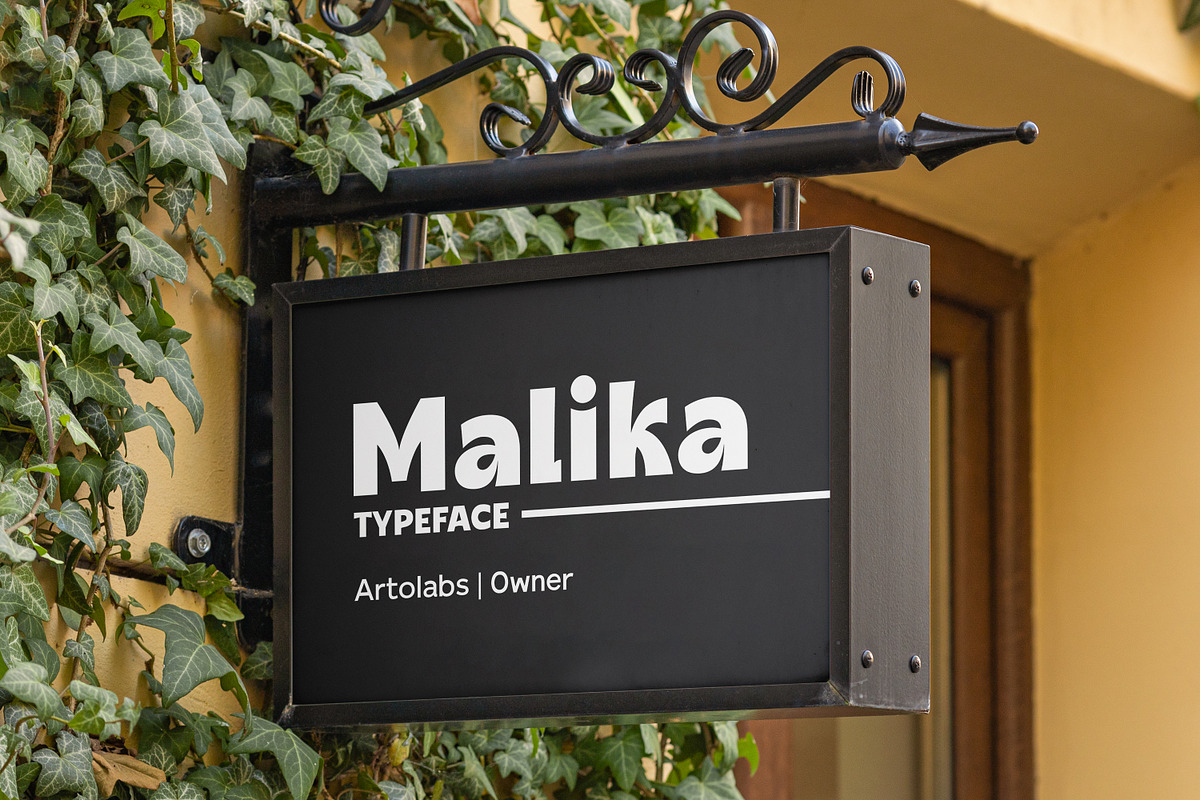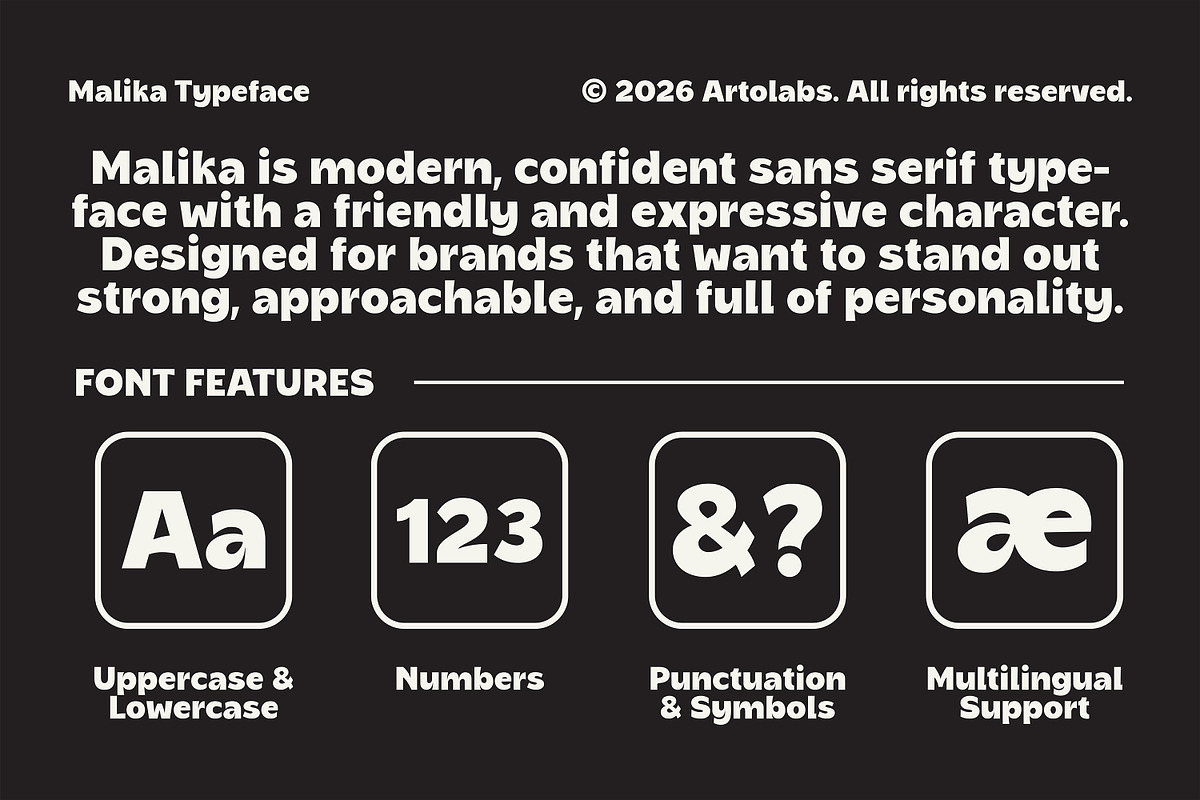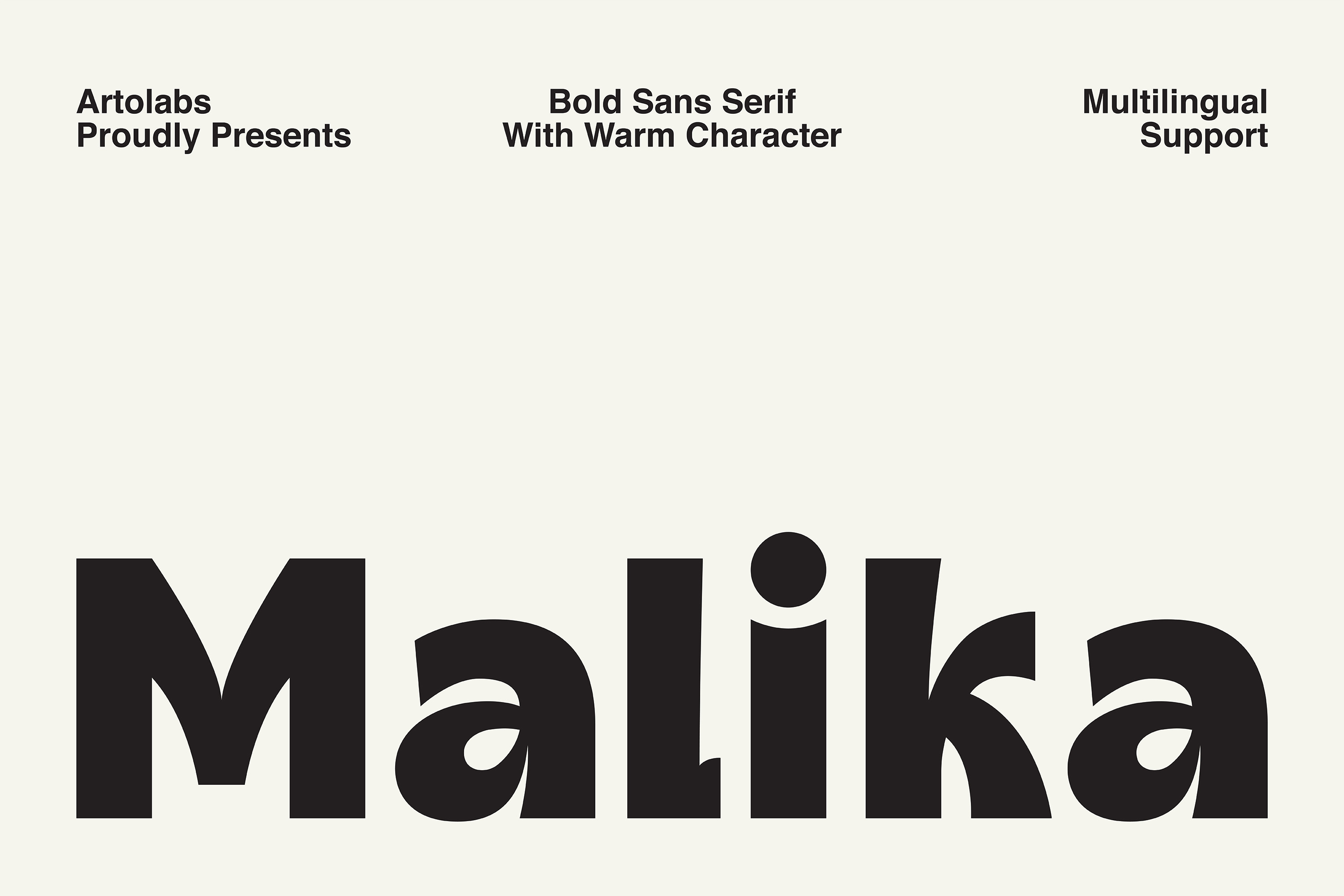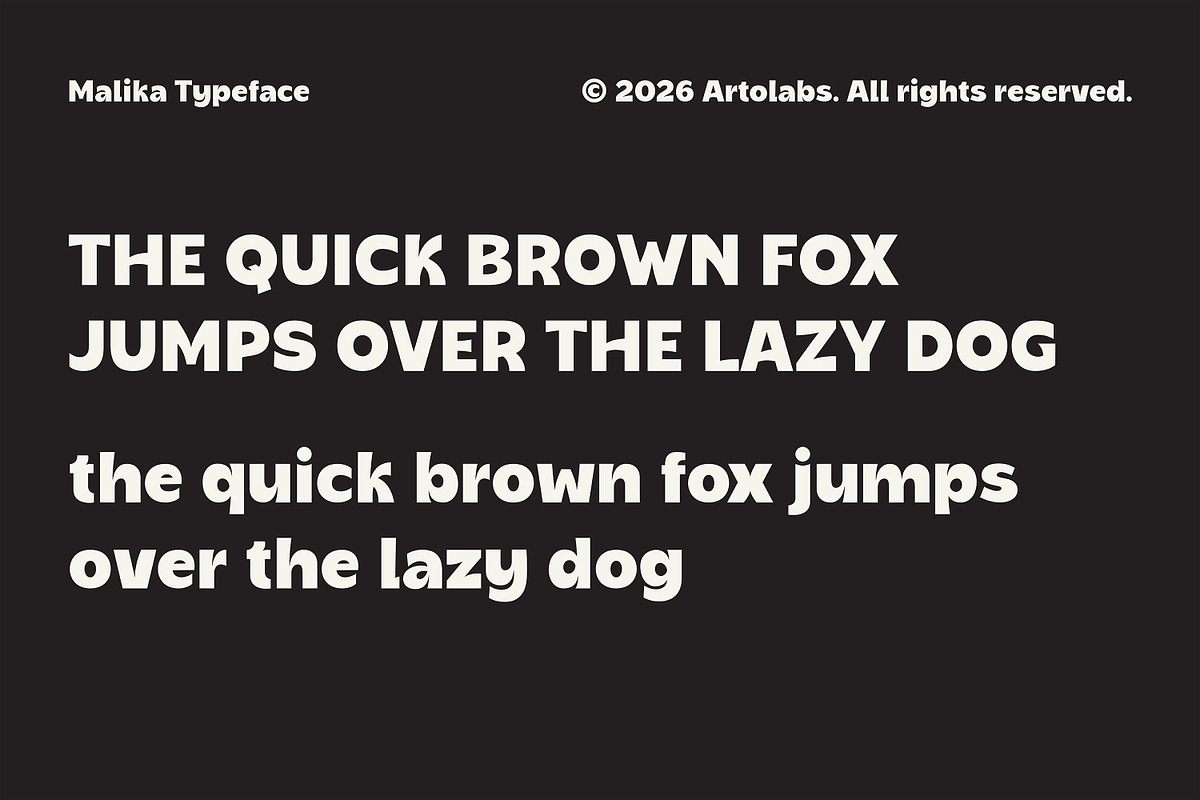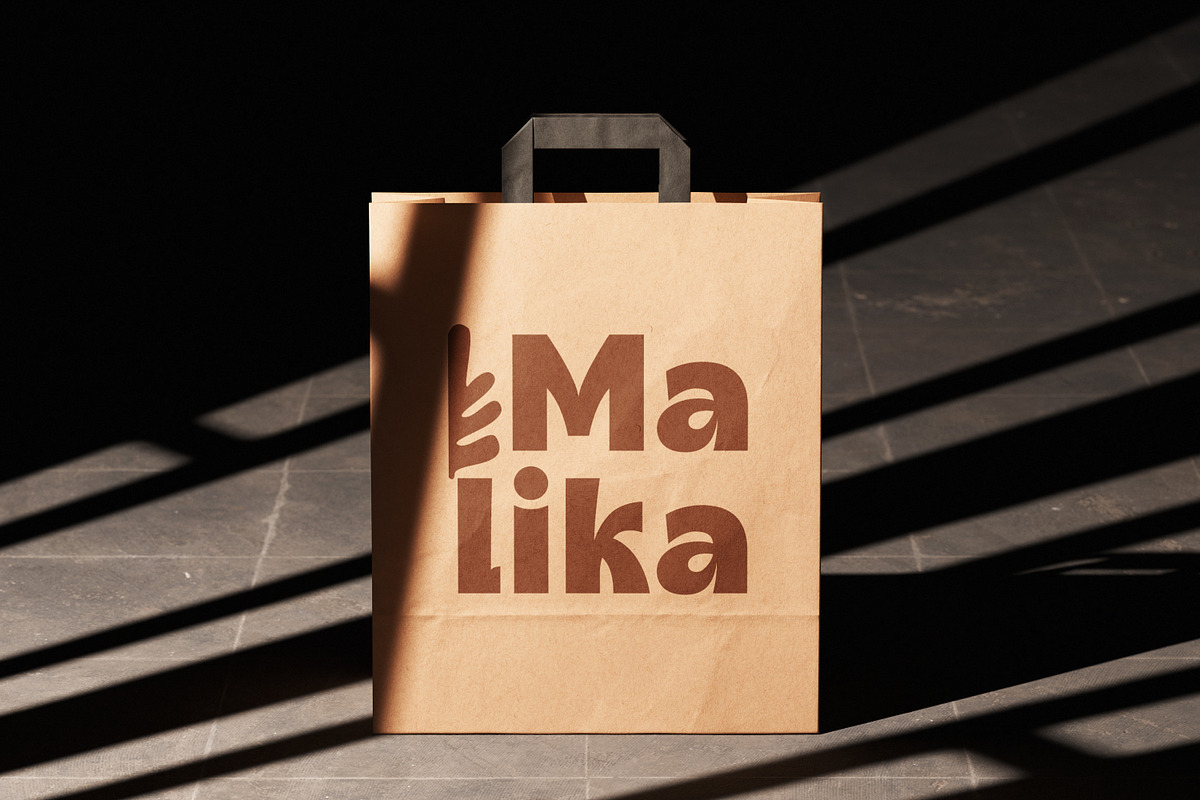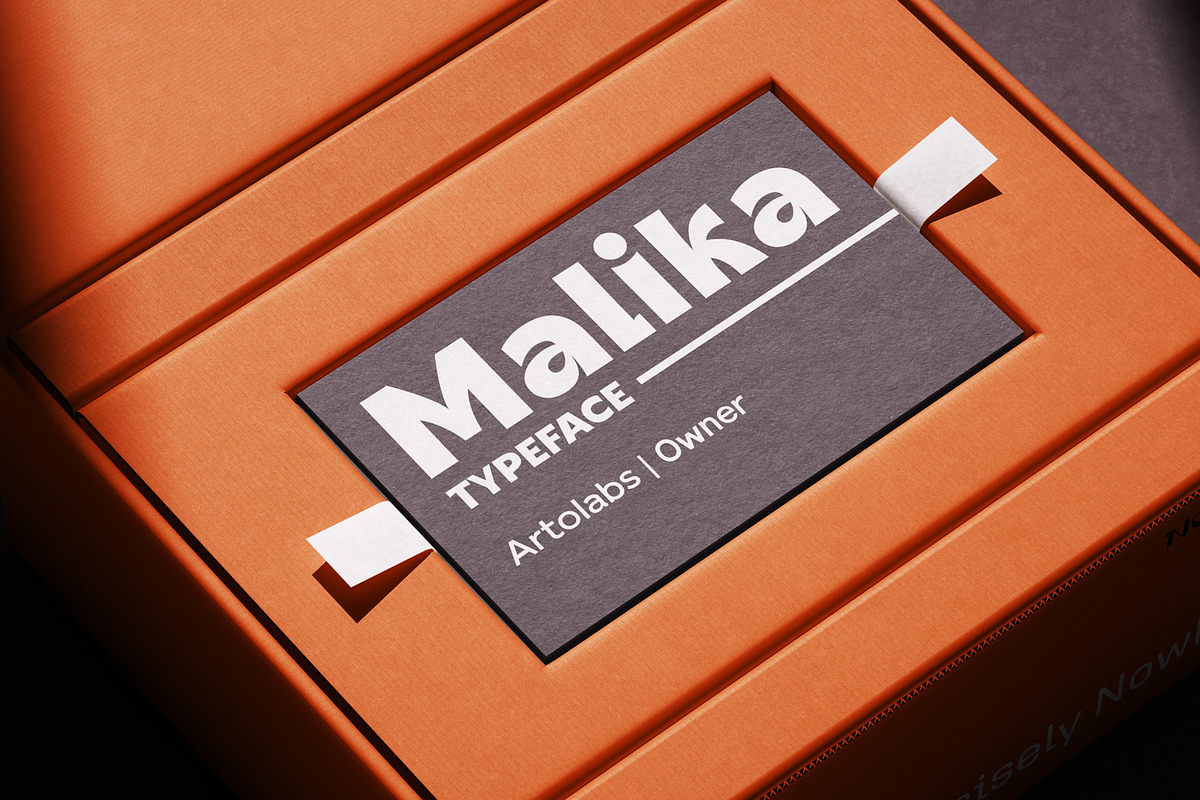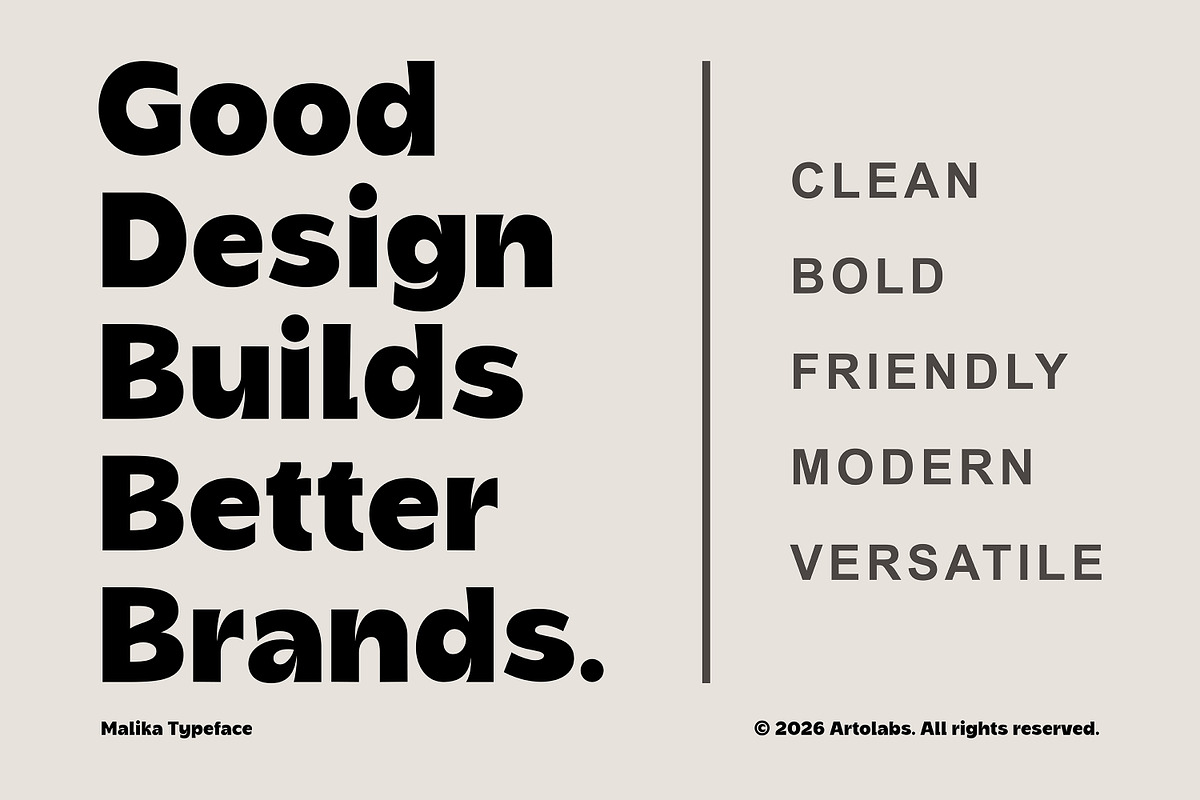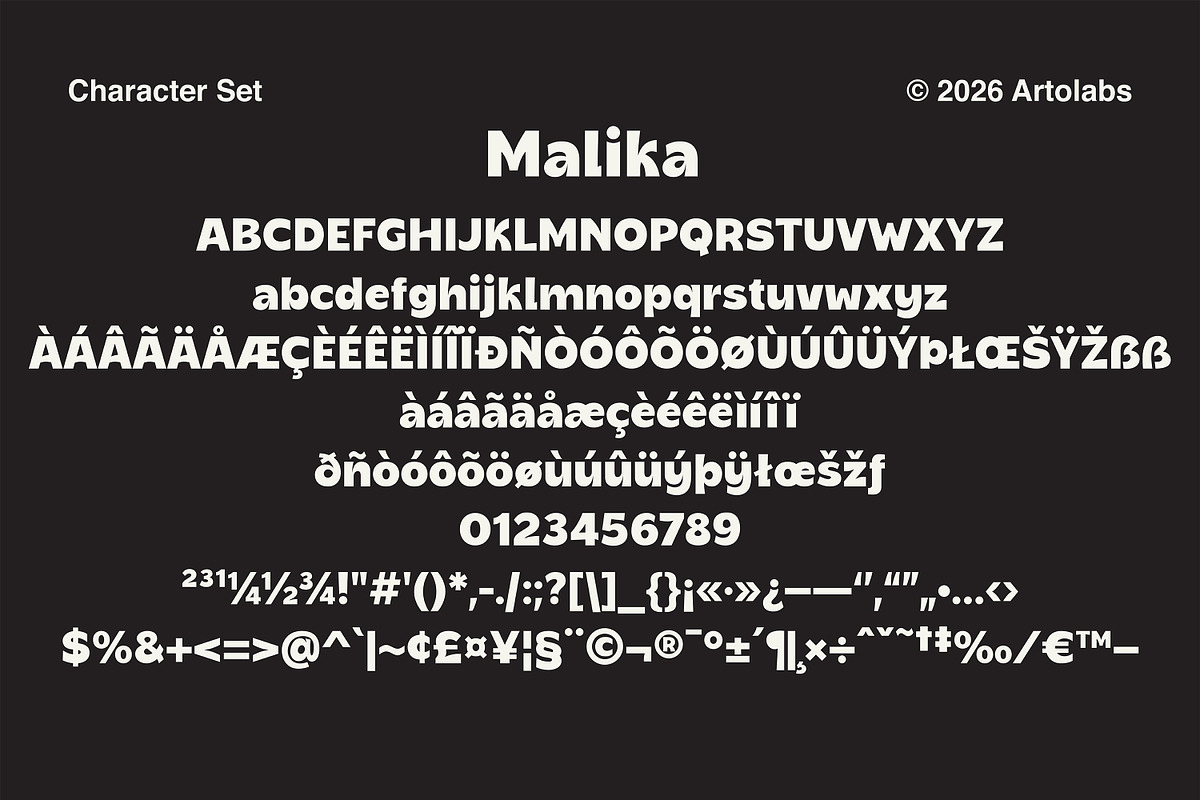
Malika | Warm & Bold Sans Serif Font
Malika is a bold sans serif font with a warm, friendly character. Its rounded terminals and soft curves balance the strong, confident weight, giving it a look that feels both modern and approachable.
With multilingual support, Malika adapts easily to a wide range of projects, from bold headlines to clean, versatile branding.
Logos & brand identity
Poster & headline design
Packaging design
Website & app UI
Editorial & magazine layouts
Standard Character Set (Uppercase & Lowercase)
Numbers, Punctuation, & Symbols